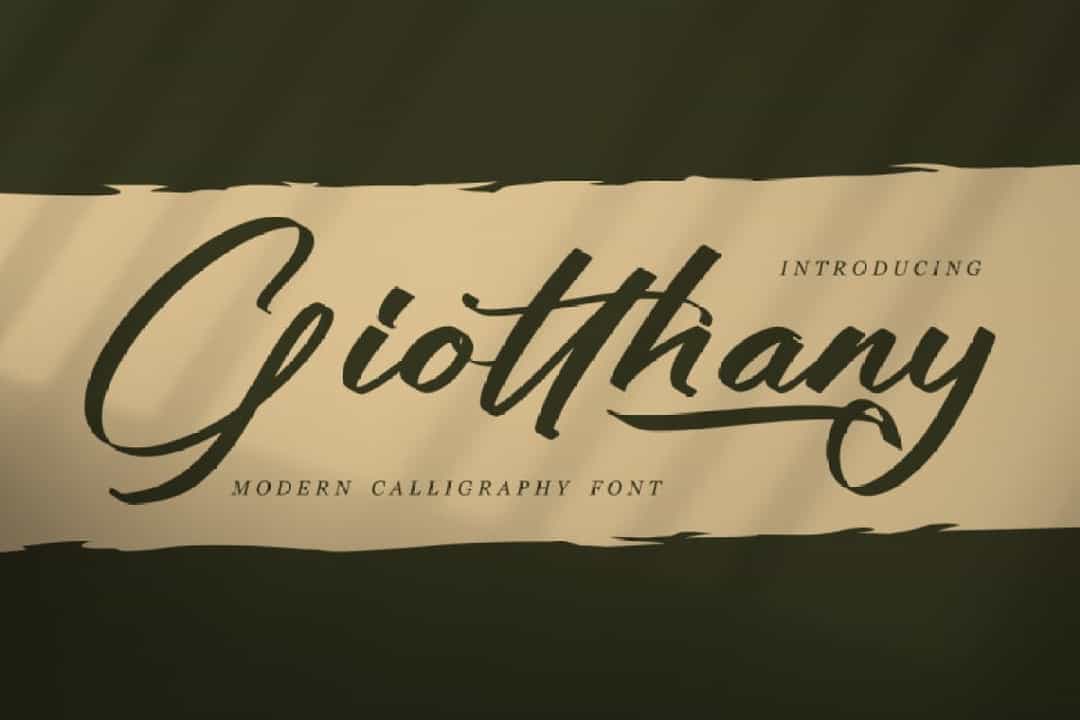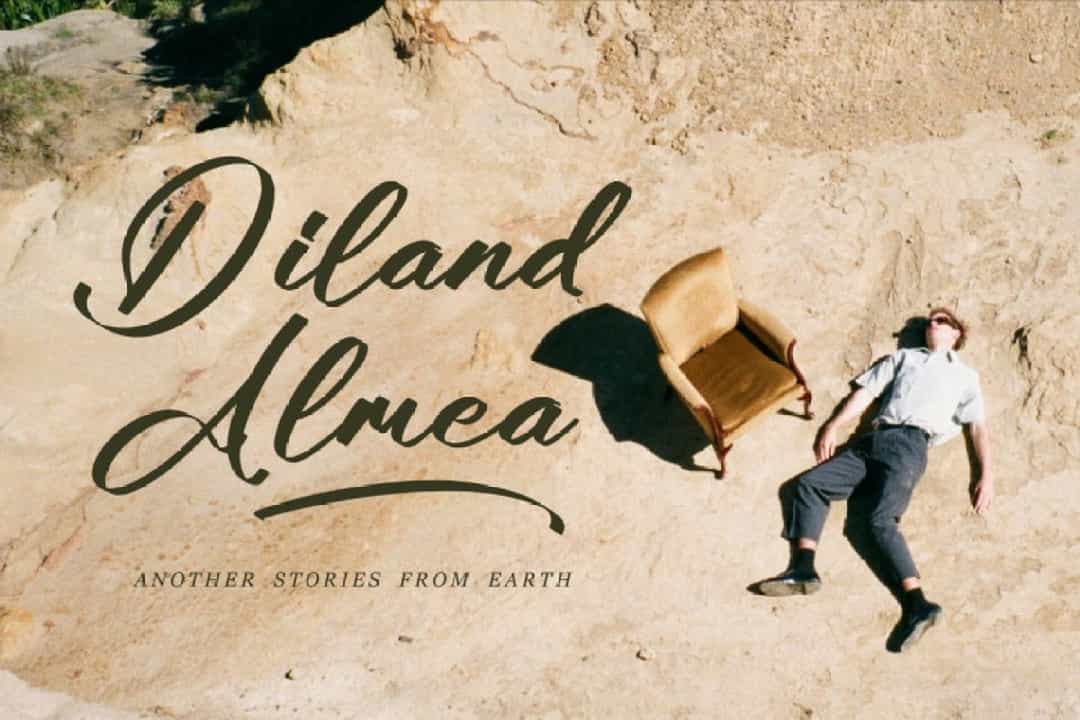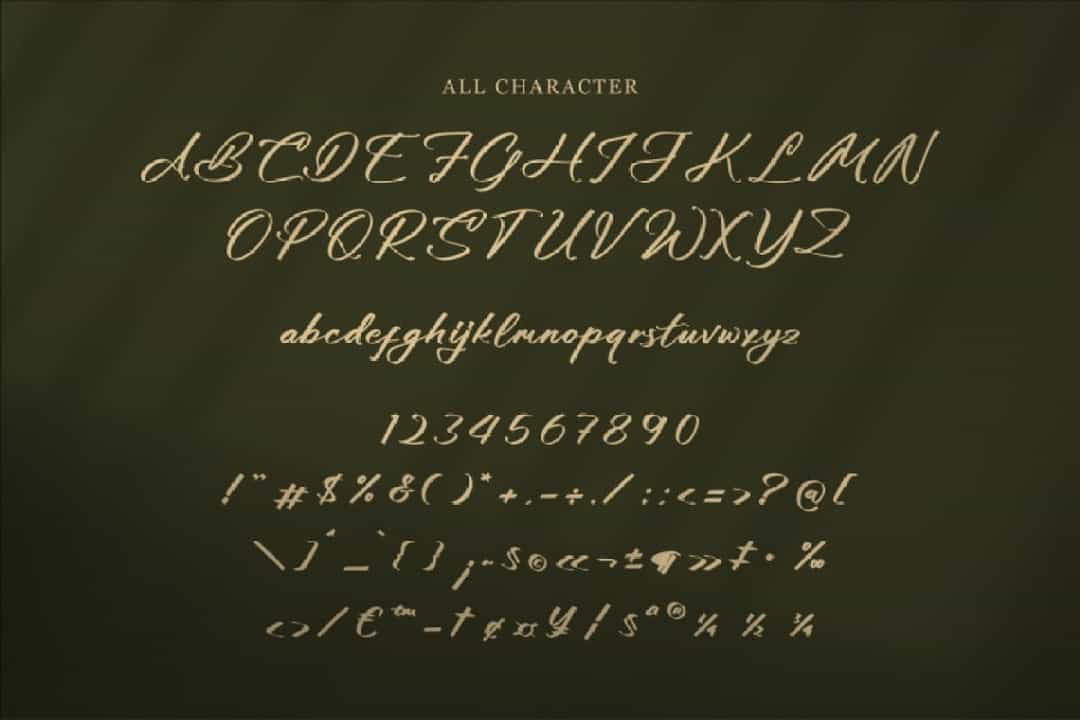
Giotthany can be described as an elegant and contemporary calligraphy font that is both modern and elegant, perfect for branding, logos, homeware designs packaging mugs product packaging posters quotes shopping bags t-shirts cover for books names cards invite cards greeting cards labels photography watermarks special events watermarks etc.